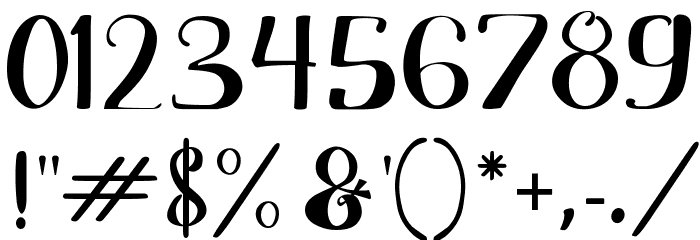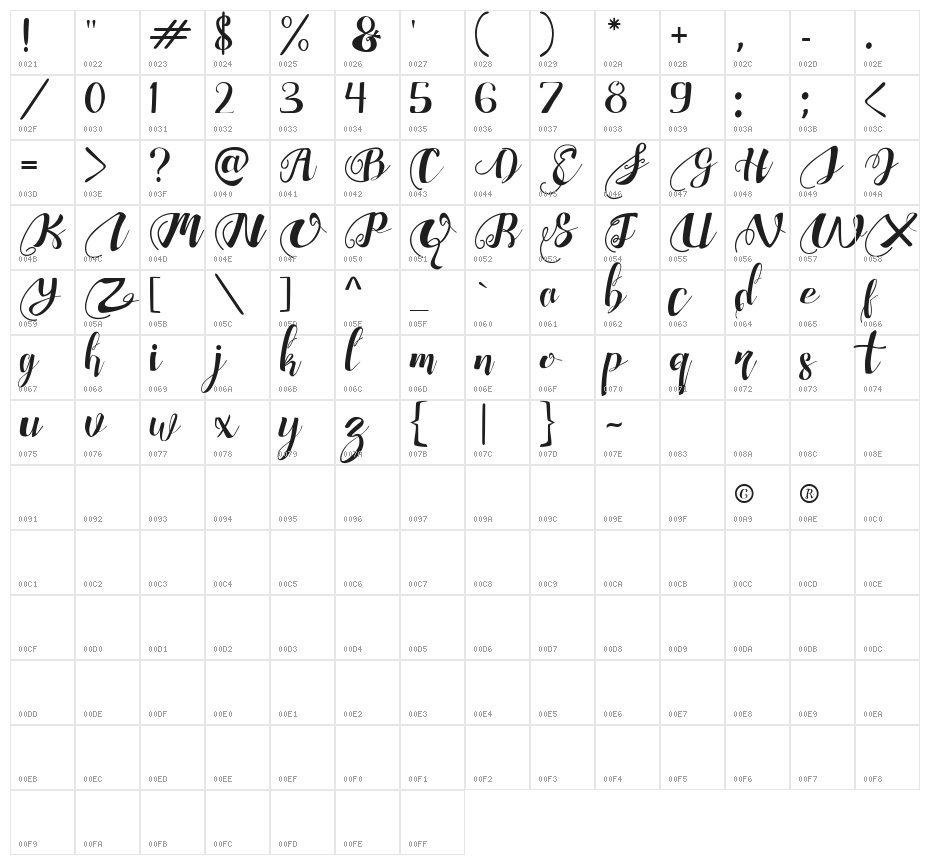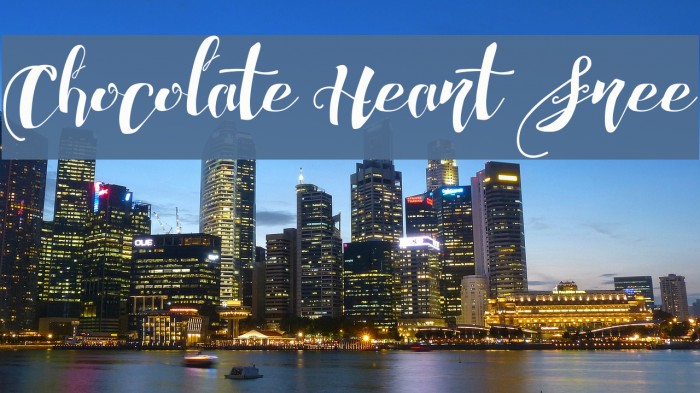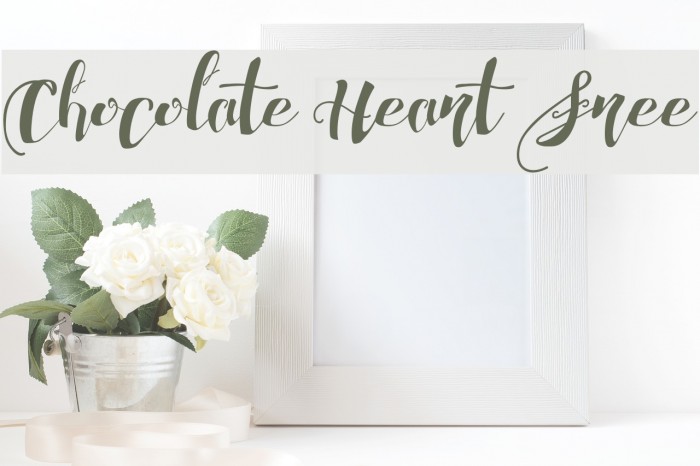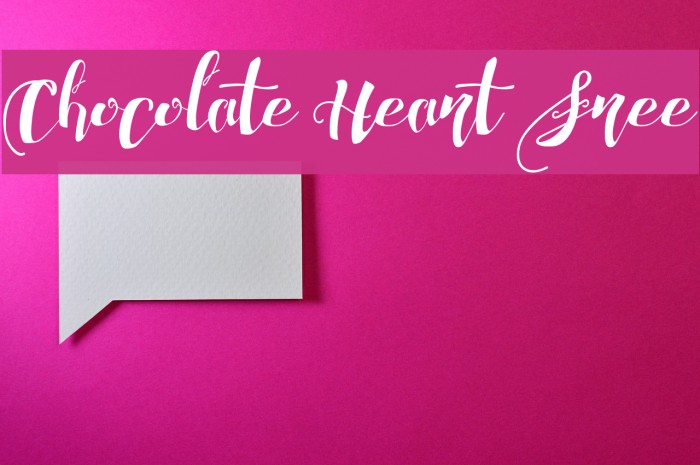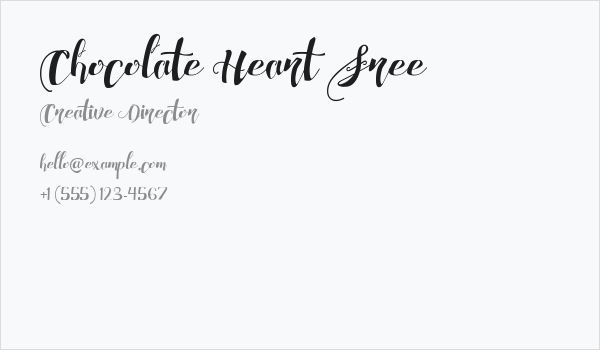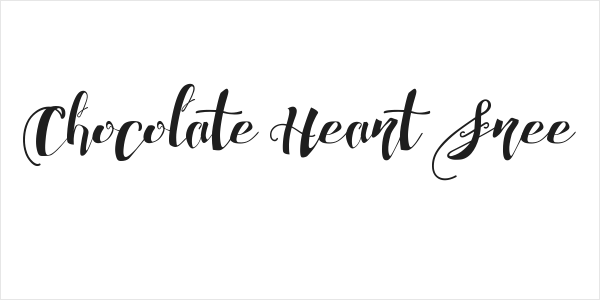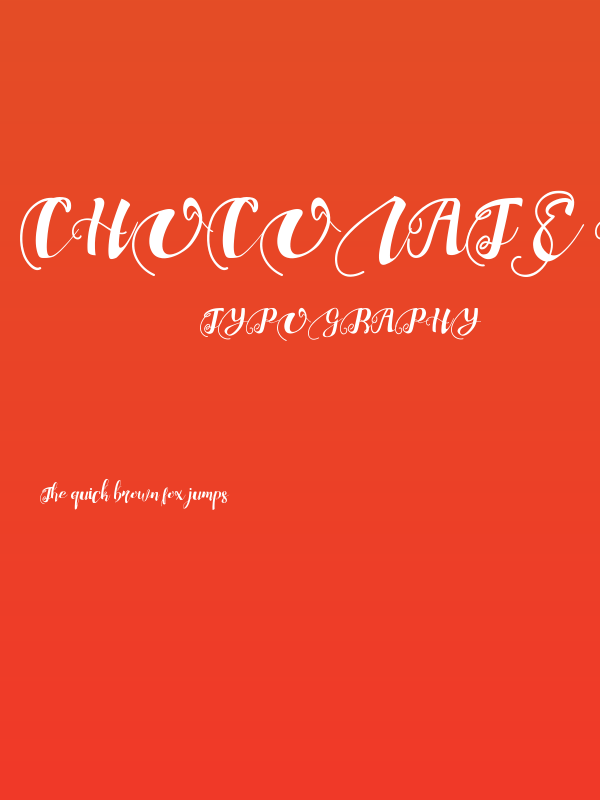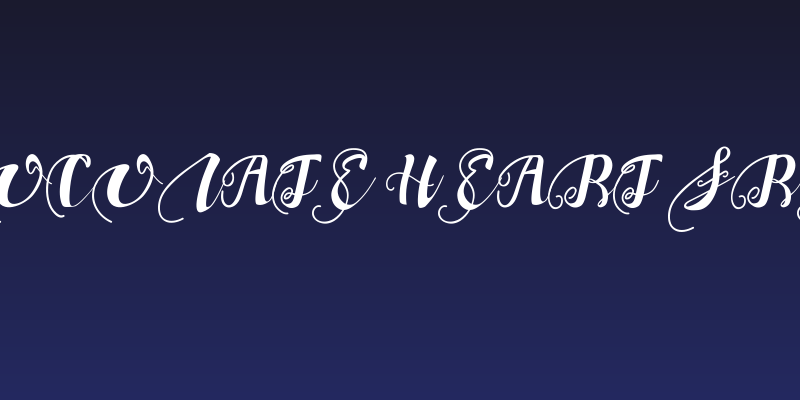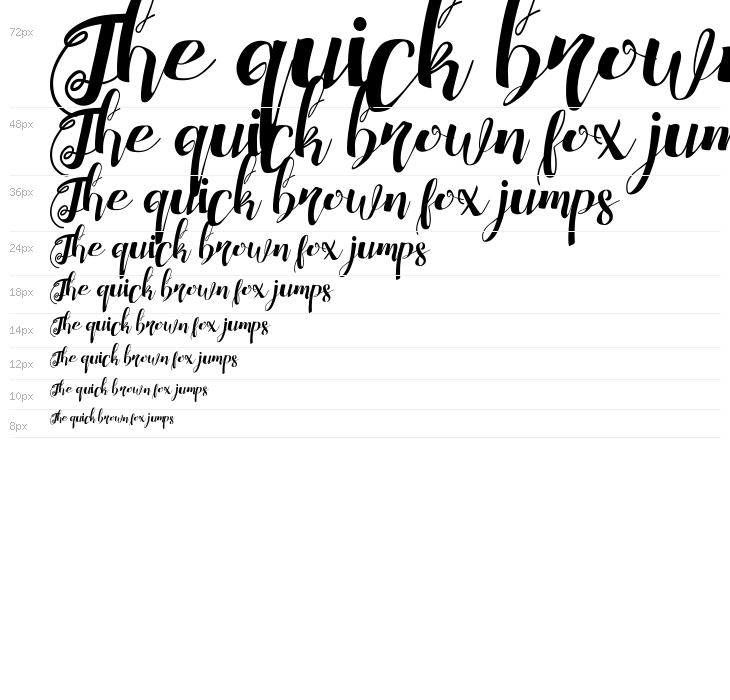
Chocolate Heart Free Font
Chocolate Heart Free Description
This font features an elegant and flowing script style, characterized by its ornate and decorative letterforms. Each character is crafted with intricate loops and swirls, giving it a romantic and sophisticated appearance. The uppercase letters are particularly elaborate, with extended flourishes that add a touch of drama and flair. The lowercase letters maintain a consistent flow, making them suitable for seamless cursive writing. The numerals and special characters are designed to complement the overall aesthetic, ensuring a cohesive look across all text elements. This font is ideal for projects that require a touch of elegance and creativity.
| Proposed Projects | Ideal for wedding invitations, greeting cards, branding, and any project requiring a romantic or sophisticated touch. |